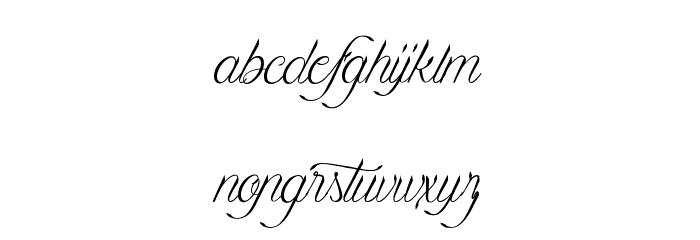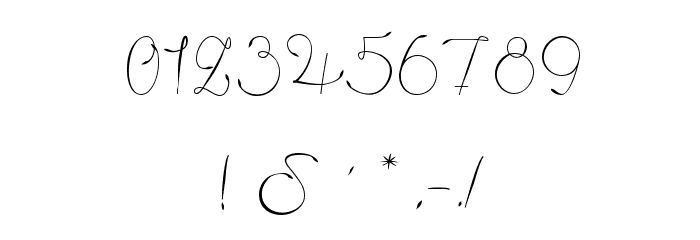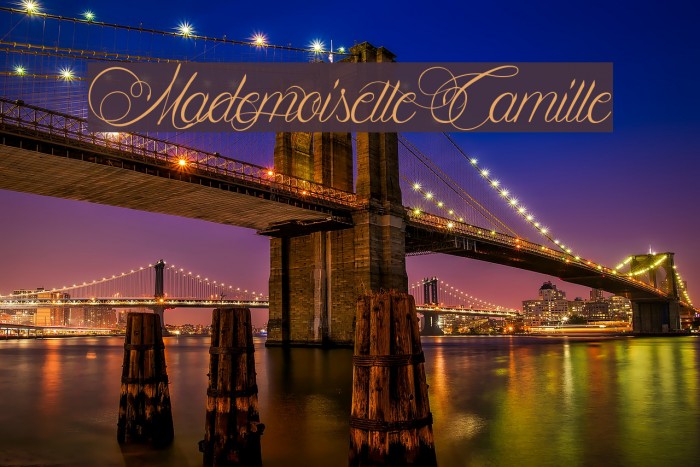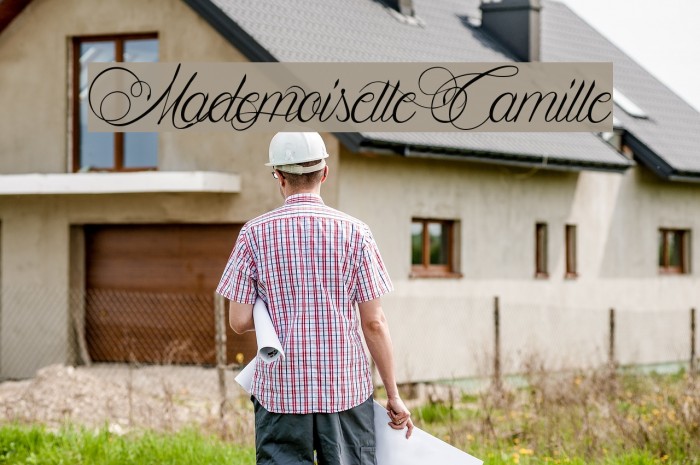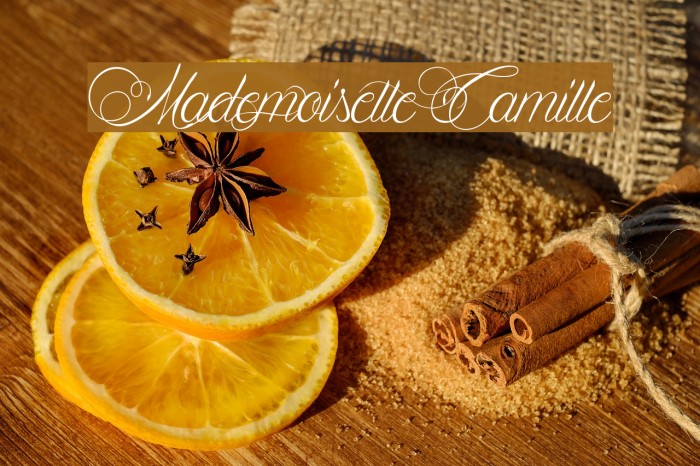
Mademoiselle Camille Font
This elegant script font features intricate and flowing letterforms with elaborate swashes and flourishes. The uppercase letters are particularly ornate, showcasing a high level of detail and artistic flair. The lowercase letters maintain a graceful and fluid style, complementing the uppercase with a more subdued elegance. The numerals are consistent with the overall aesthetic, offering a refined and sophisticated appearance. Special characters are designed with similar attention to detail, making them suitable for decorative purposes. The font's delicate lines and curves create a sense of luxury and sophistication, ideal for formal invitations, branding, and high-end product packaging.
An elegant script font with intricate swashes and flourishes, perfect for formal and decorative use.
- Proposed Projects: Ideal for wedding invitations, luxury branding, high-end product packaging, and decorative headings.
- Use Case: Headlines, Logos, Invitations